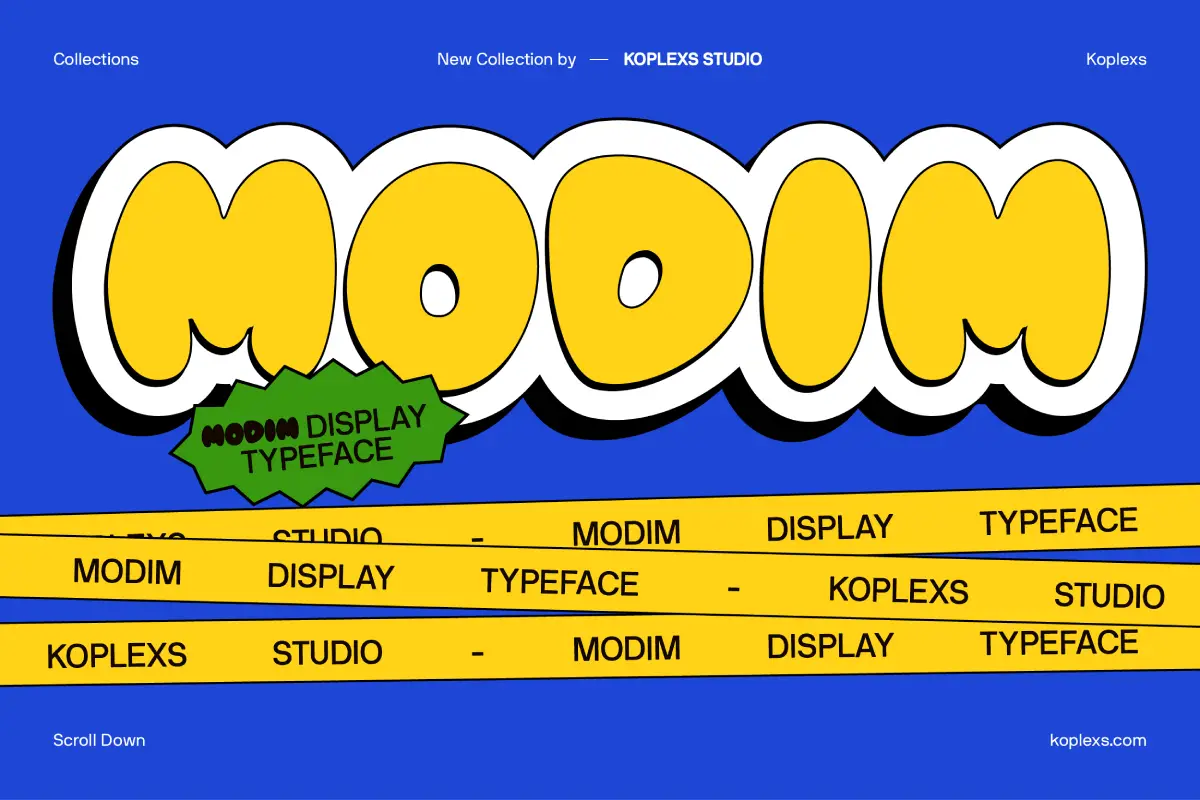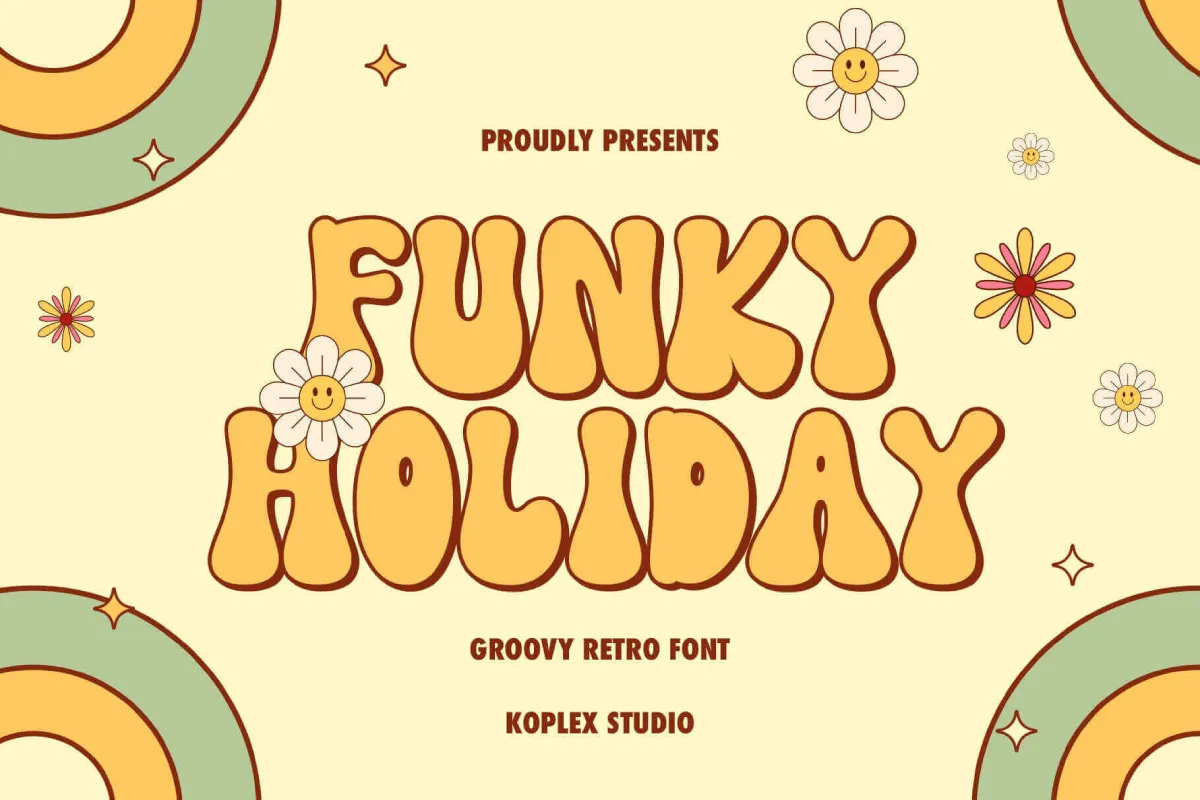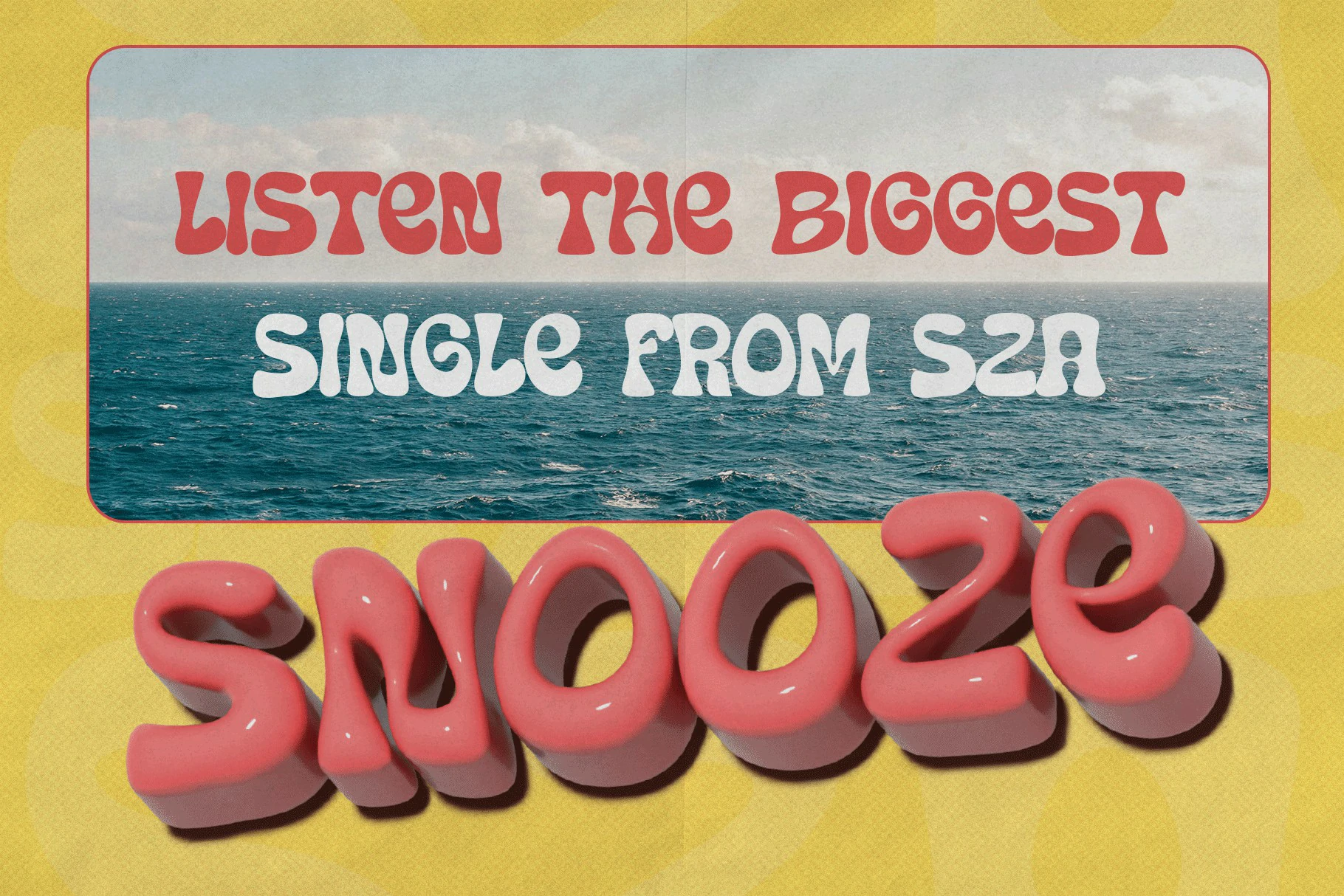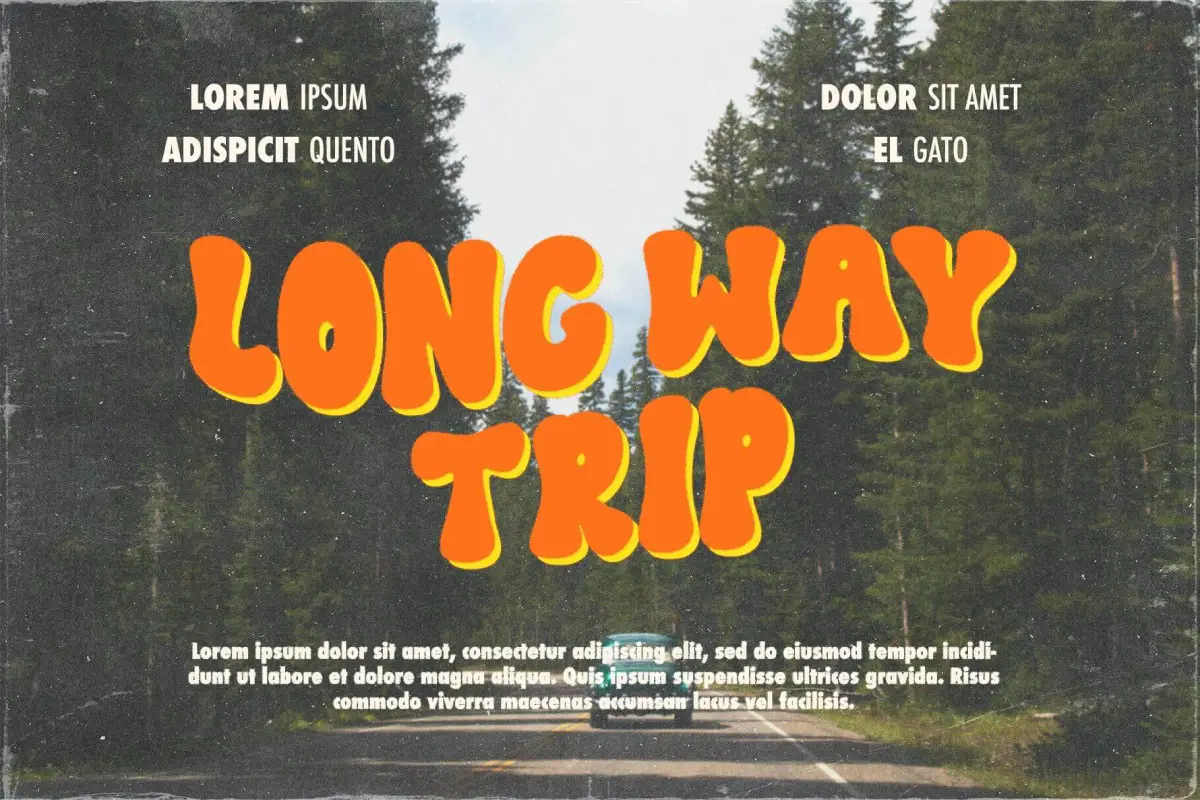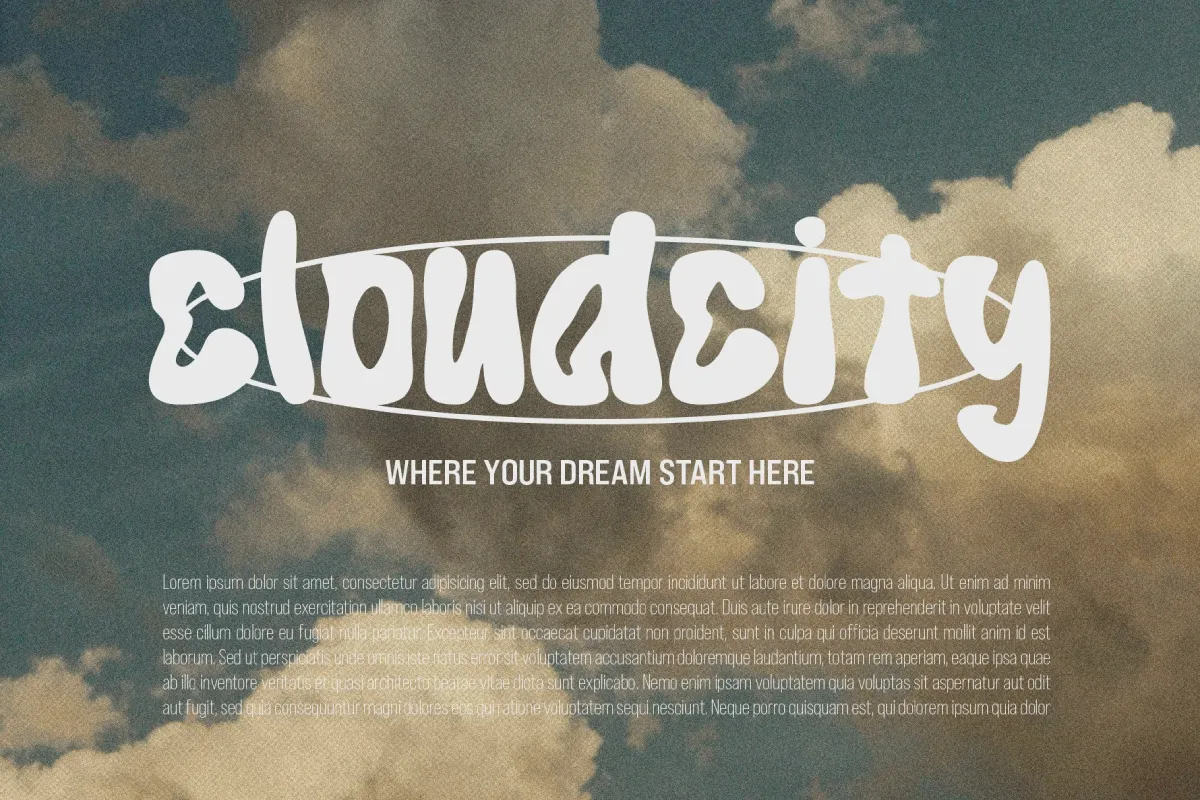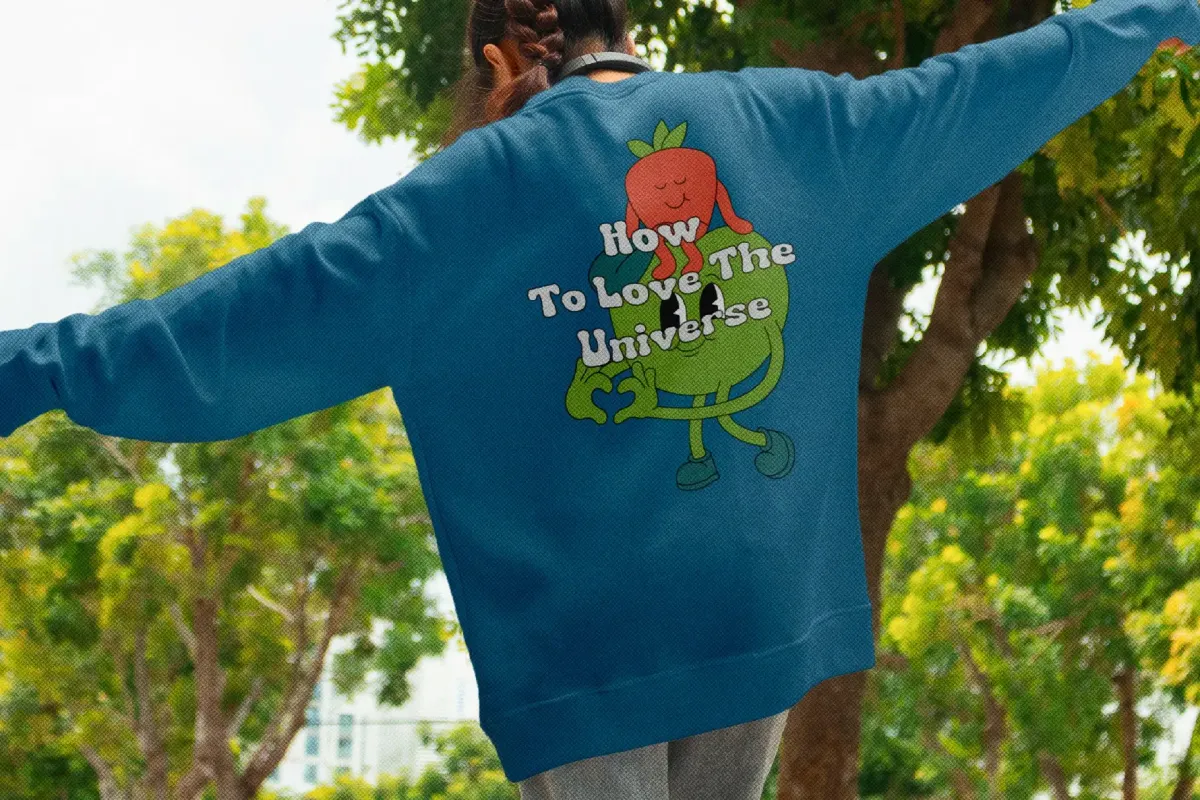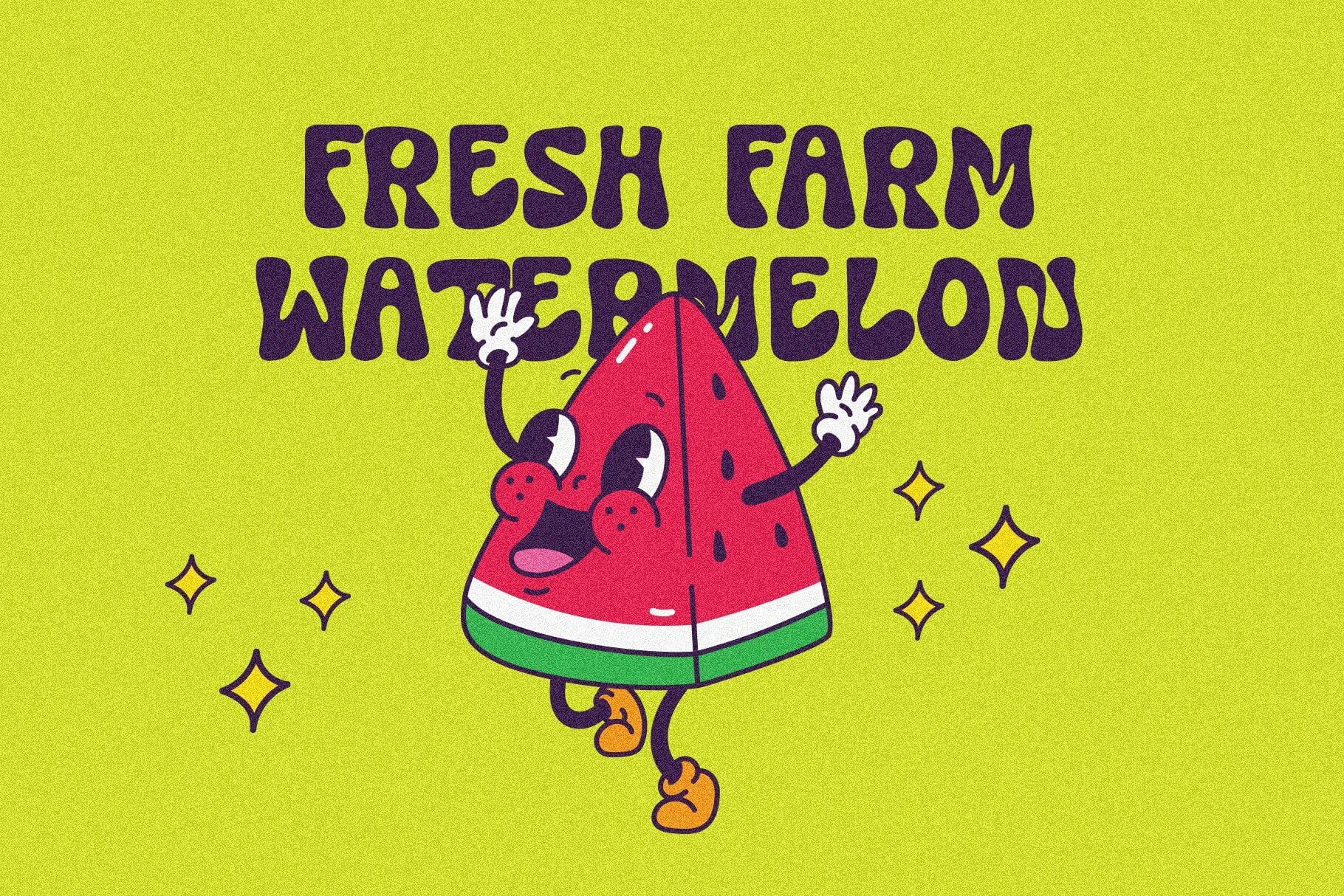
The bubble cute font has become one of the most trending typefaces for designers, brand owners, and content creators looking to add a playful and eye-catching vibe to their work. With its rounded, puffy letters, this font style not only captures attention but also delivers a sense of friendliness and approachability.
Whether you are designing a logo, creating social media content, or working on print projects, the bubble cute font is a versatile tool that helps your designs stand out. In this article, we’ll dive deep into why this font is so popular, how it’s used across industries, where you can find the best options, and why investing in high-quality bubble cute fonts can enhance your creative projects.
Why Bubble Cute Font Is Taking Over the Design World
The appeal of bubble cute fonts goes beyond their aesthetic charm. They represent warmth, fun, and positivity qualities that resonate deeply with modern audiences. Brands and creators are leaning towards designs that feel human and approachable, making bubbly fonts the perfect match.
Visual Friendliness: Their round edges make them easy on the eyes.
Versatility: Can be used in logos, posters, websites, packaging, and more.
Trendy Yet Timeless: Popular in both retro and modern digital aesthetics.
Psychological Effect: Rounded fonts are perceived as more friendly, safe, and inclusive compared to sharp-edged fonts.
A 2023 study in Typography Journal revealed that 68% of consumers found brands with rounded fonts more trustworthy and fun than those with rigid typefaces.
The History of Bubble Cute Fonts
Bubble-style lettering traces its origins back to graffiti and hand-drawn art in the 1960s and 1970s. Artists would inflate their letters to make them bold, memorable, and harder to ignore. Over time, the style transitioned into digital typography, where designers refined it into the playful bubble cute font we see today.
This evolution makes the font more than just a design choice it’s a cultural icon that carries both nostalgia and modern flair.
Where to Use Bubble Cute Fonts
1. Branding and Logos
If you want your brand to appear approachable, joyful, and youthful, bubble cute fonts are a great choice. Many food, toy, and lifestyle brands use this typeface to connect emotionally with customers.
2. Social Media Content
On platforms like Instagram, TikTok, and Pinterest, bubble cute fonts dominate. They instantly grab attention in crowded feeds and make your content pop.
3. Event Invitations and Posters
Birthday parties, baby showers, and festivals often call for fonts that express fun. Bubble fonts are perfect for such themes.
4. Merchandising and Packaging
From T-shirts to stickers, mugs, and candy wrappers, bubble fonts help create a playful product identity.
5. Website Headers and Banners
Adding a bubble cute font in website design (especially for playful brands) helps balance professionalism with creativity.
Best Bubble Cute Fonts Worth Trying
Here are a few popular bubble cute fonts you can explore for personal or commercial projects:
Modim Font
This Best Bubble Letters Alphabet Font, Modim Font, from Koplexs Studio is a playful modern bubble display typeface perfect for logos, branding, games, headlines, and fun design needs. Add it to your creative toolkit and make your typography pop. Check it out now!
Funky Holiday Font
The Best Bubble Letters Alphabet Font Funky Holiday Font delivers bold, playful, groovy retro bubble letters that bring lively 70s and 80s nostalgia to your design projects. Give your branding or poster work a funky twist. Explore it today!
Retro Letter Font
With the Best Bubble Letters Alphabet Font Retro Letter Font, you get bold retro bubble letters inspired by classic 70s designs, ideal for logos, posters, packaging, and eye-catching branding. Bring a vintage punch to your typography. Download and try it now!
Super Groovy Font
The Best Bubble Letters Alphabet Font Super Groovy Font offers vibrant, playful bubble lettering with strong retro vibes that instantly energize any project. Transform your creative work with stylish groovy flair. Grab it today!
Lumida Font
The Best Bubble Letters Alphabet Font Lumida Font is a fun groovy retro display typeface with soft curves and nostalgic 60s and 70s charm, great for logos, posters, and craft projects. Elevate your design with vintage personality. Get Lumida now!
Master Retro Font
The Best Bubble Letters Alphabet Font Master Retro Font blends vintage charm with bold bubble shapes inspired by 70s and 80s aesthetics, making it perfect for standout headlines and packaging. Give your design a retro boost. Check it out today!
Blockier Font
The Best Bubble Letters Alphabet Font Blockier Font features bold, chunky bubble shapes that deliver strong retro impact for logos, headlines, and branding. Make a statement with powerful typography. Try Blockier today!
Final Thoughts
Design trends may change, but the charm of bubble cute fonts continues to grow. By using them wisely and investing in high-quality versions, you not only elevate your creative work but also build trust and engagement with your audience.